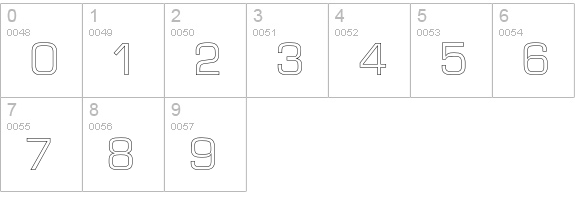
EuroTechnicOutline is a modern and sleek font that exudes sophistication and professionalism. Its clean lines and sharp edges make it perfect for a wide range of design projects, from logos to website headers. The unique geometric shapes of EuroTechnicOutline give it a futuristic and avant-garde feel that is sure to make a statement. What sets EuroTechnicOutline apart is not just its visual appeal, but also the fact that it is available for free download at FontsMarket.com. This means that you can easily access this high-quality font without any cost, making it a valuable addition to your font collection. Whether you are a graphic designer, web developer, or just someone who appreciates good design, EuroTechnicOutline is a versatile and stylish font that you won't want to miss out on.